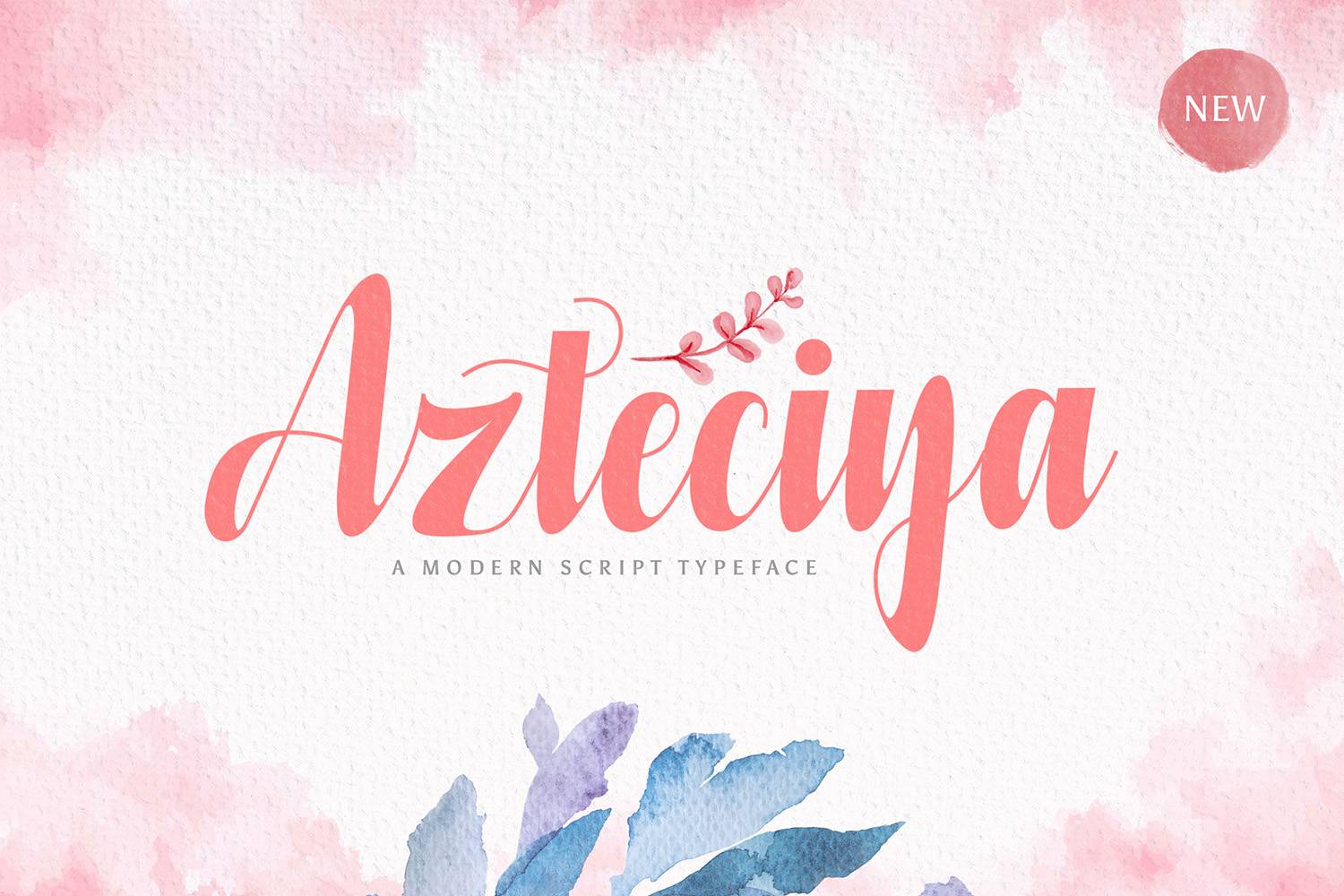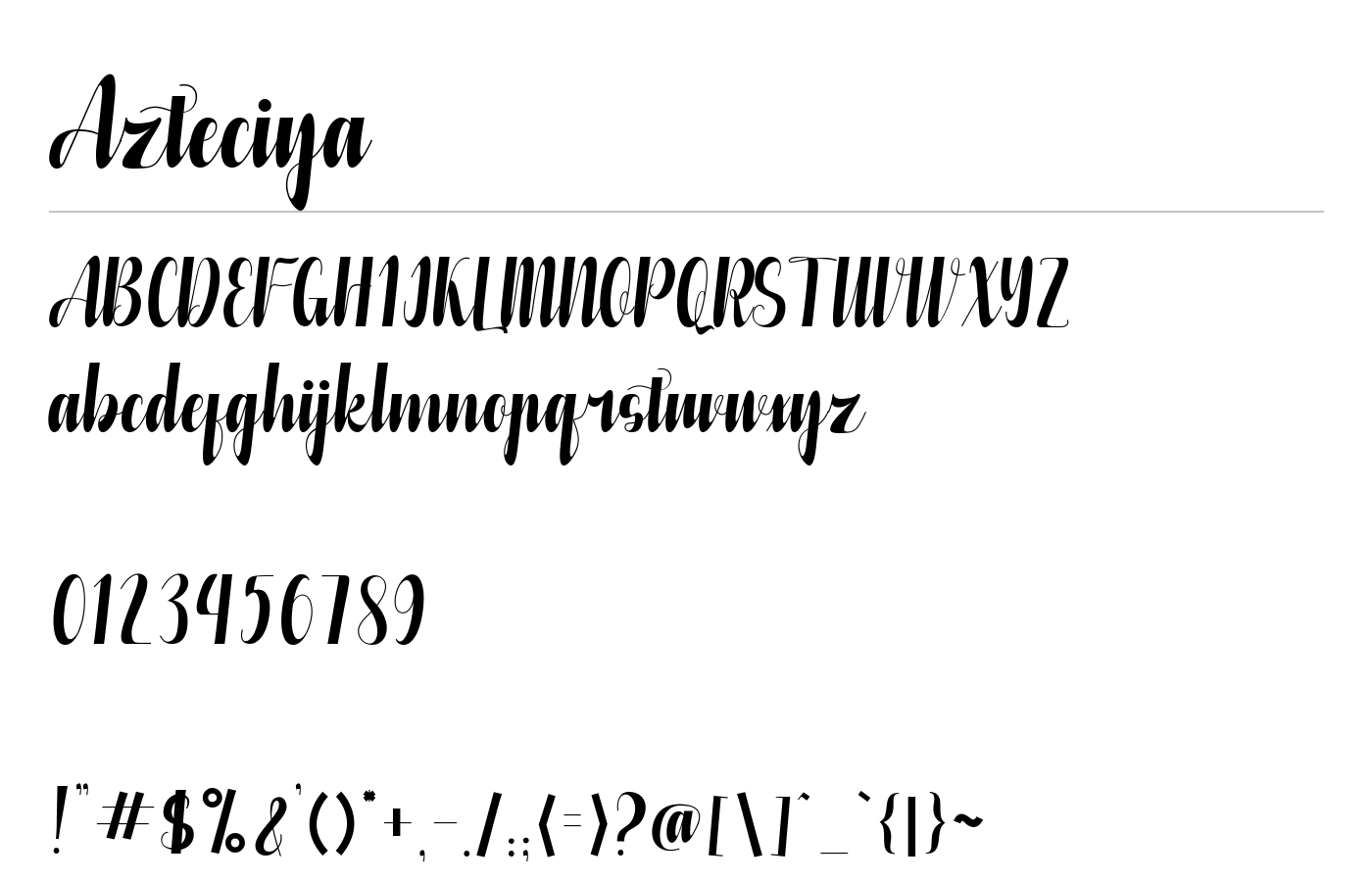
Azteciya is an elegant script font with a stylish, modern flair, featuring tall, narrow letterforms and noticeable contrast between thick and thin strokes. Its unique letter shapes and graceful swashes create a sophisticated yet dynamic personality, making it ideal for fashion branding, logos, and eye-catching headlines. This font works beautifully where a refined and artistic impression is desired.
Azteciya Font
About Azteciya Font